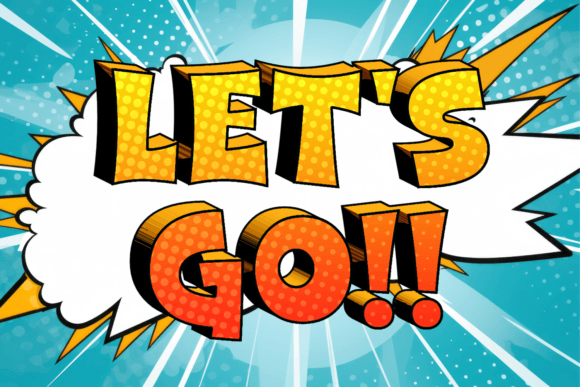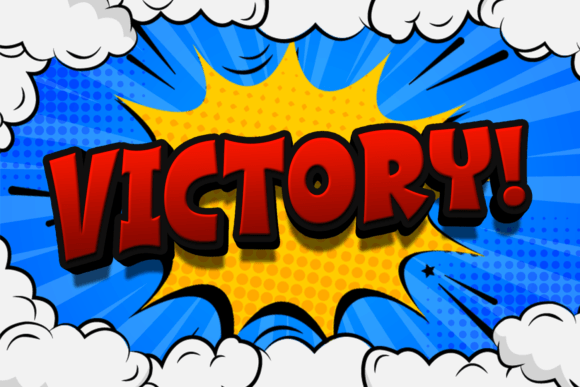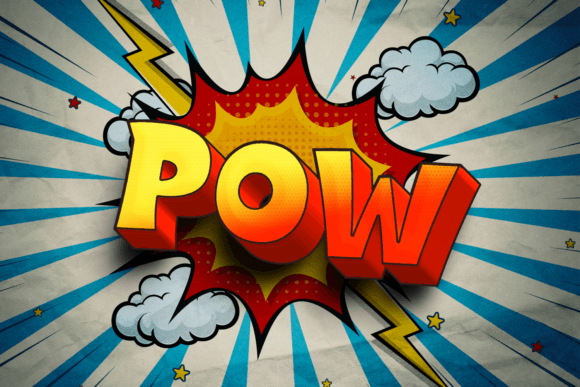
Unleash Your Inner Superhero: Introducing the Comic Babe Font
Are you a designer, crafty enthusiast, or simply a fan of superheroes? Look no further! We’re excited to introduce the Comic Babe Font, a bold and dynamic superhero display font designed to capture the larger-than-life energy and excitement of superhero themes. In this article, we’ll dive into the world of Comic Babe, exploring its features, uses, and benefits for your next creative project.
The Birth of a Superhero Font
Comic Babe is tailor-made for superhero-themed designs, comic books, movie posters, and any pop culture-related projects. This font is perfect for designers and crafters who want to add a touch of superhero flair to their work. With its bold and dynamic design, Comic Babe is sure to make a statement and grab the attention of your audience.
Key Features of Comic Babe Font
- Bold and Dynamic Design: Comic Babe boasts a bold and dynamic design, making it perfect for headlines, titles, and emphasis text.
- Superhero Theme: This font is specifically designed for superhero-themed projects, ensuring that your work stands out from the crowd.
- High-Quality Vector Graphics: Comic Babe is built with high-quality vector graphics, ensuring that your text remains crisp and clear even at large sizes.
- Easily Customizable: With its wide range of font styles and weights, Comic Babe can be easily customized to fit your project’s unique needs.
Uses for Comic Babe Font
So, what can you do with the Comic Babe Font? The possibilities are endless! Here are a few ideas to get you started:
- Superhero-Themed Designs: Use Comic Babe to create bold and eye-catching superhero logos, posters, and flyers.
- Comic Books and Graphic Novels: Add a touch of authenticity to your comic book or graphic novel with Comic Babe’s dynamic and bold font.
- Movie Posters and Trailers: Make your movie poster or trailer stand out with Comic Babe’s bold and attention-grabbing design.
- Pop Culture-Related Projects: From fan art to cosplay, Comic Babe is the perfect font for any pop culture-related project.
So, why should you choose Comic Babe Font for your next project? Here are just a few benefits:
- Time-Saving: With Comic Babe, you can quickly and easily create bold and eye-catching text without spending hours designing from scratch.
- Professional-Grade Results: Achieve professional-grade results with Comic Babe’s high-quality vector graphics and dynamic design.
- Endless Creative Possibilities: With its wide range of font styles and weights, Comic Babe offers endless creative possibilities for your next project.
In conclusion, the Comic Babe Font is a bold and dynamic superhero display font that’s perfect for designers, crafters, and superhero fans alike. With its bold and dynamic design, high-quality vector graphics, and endless creative possibilities, Comic Babe is the perfect addition to your next superhero-themed project. So why wait? Unleash your inner superhero and get creative with Comic Babe Font today!